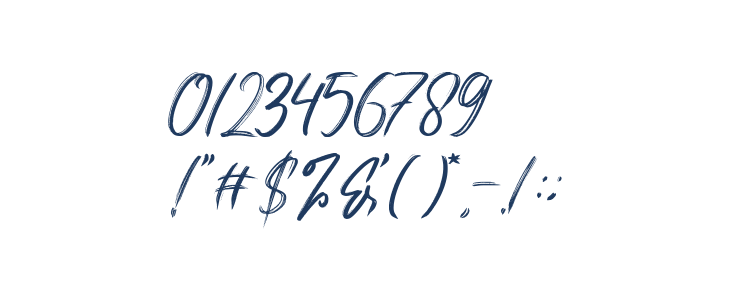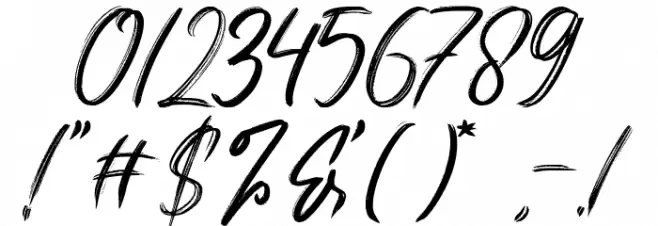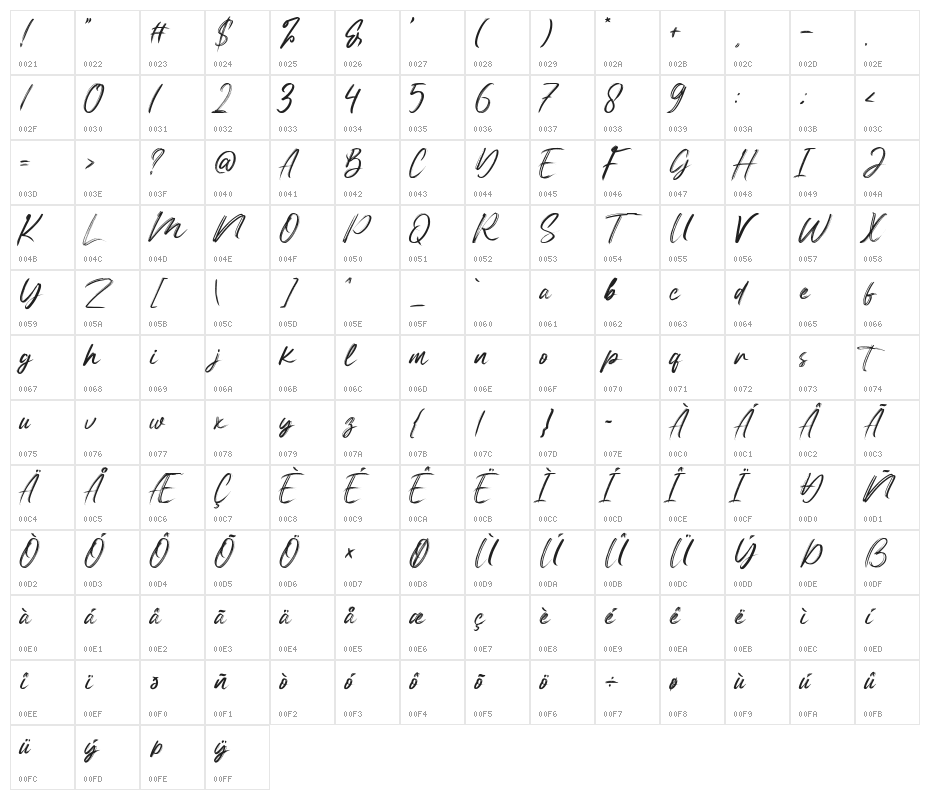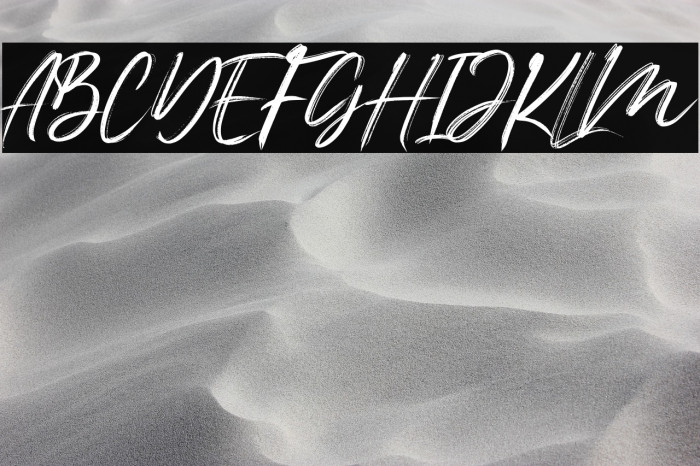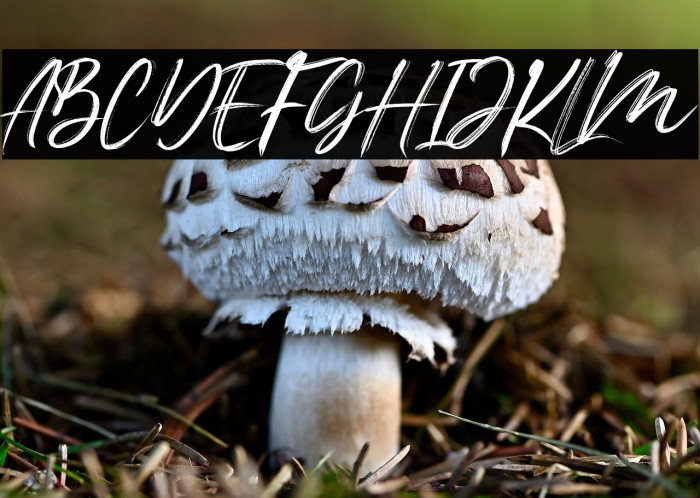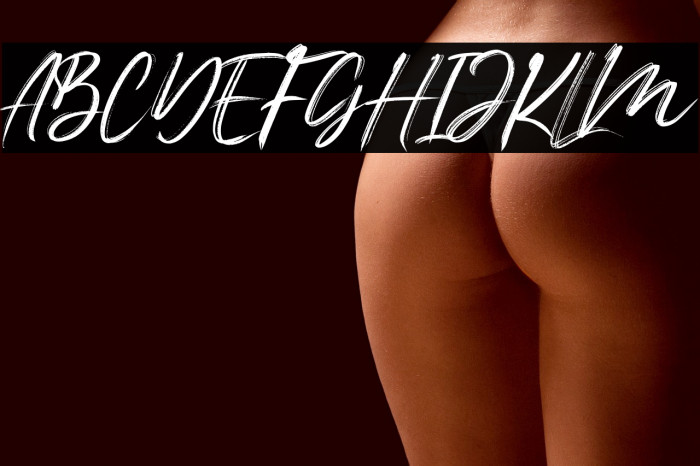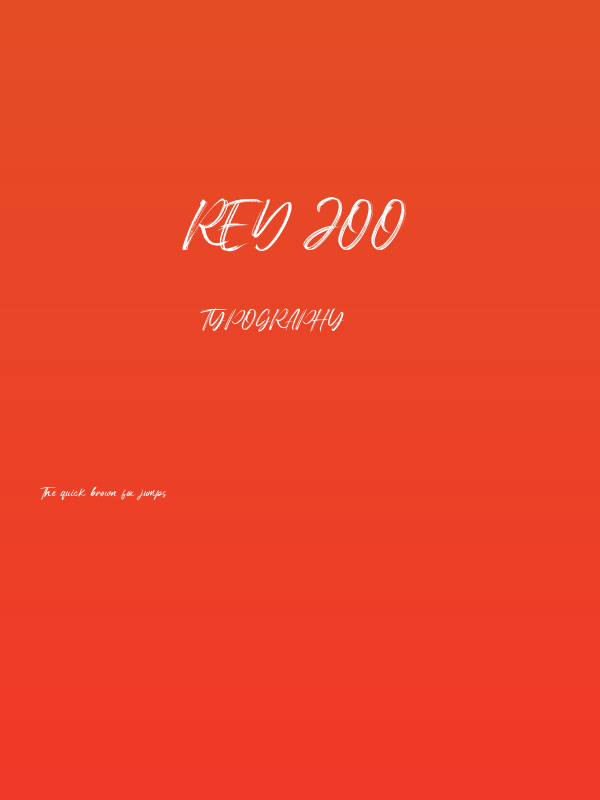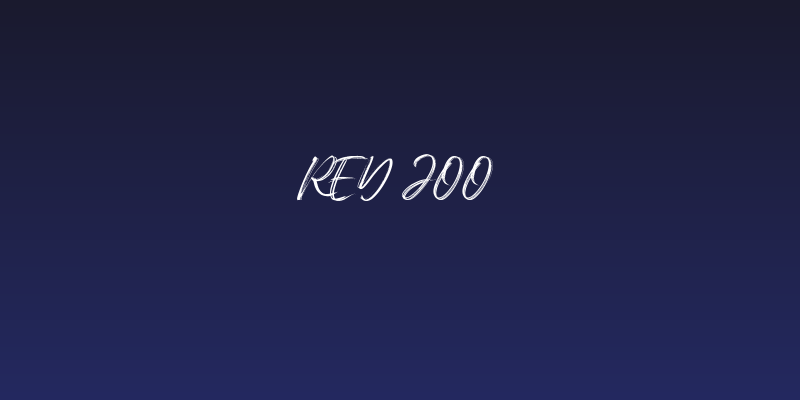
Red Joo Font
Red Joo Description
This font features a dynamic and expressive handwritten style, characterized by its fluid strokes and artistic flair. The letters are crafted with a sense of motion, giving them a lively and energetic appearance. The uppercase letters are bold and sweeping, while the lowercase letters maintain a consistent flow with slightly more subtle curves. The numbers and special characters follow the same stylistic approach, ensuring a cohesive look across all elements. The brush-like texture adds depth and a handcrafted feel, making it ideal for projects that require a personal touch.
A dynamic, expressive handwritten font with fluid strokes and artistic flair from Uncategorized fonts.
- Font: Red Joo
- Proposed Projects: Ideal for branding, invitations, greeting cards, and creative projects that require a personal touch.
- Use Case: Logos, Headlines, Invitations